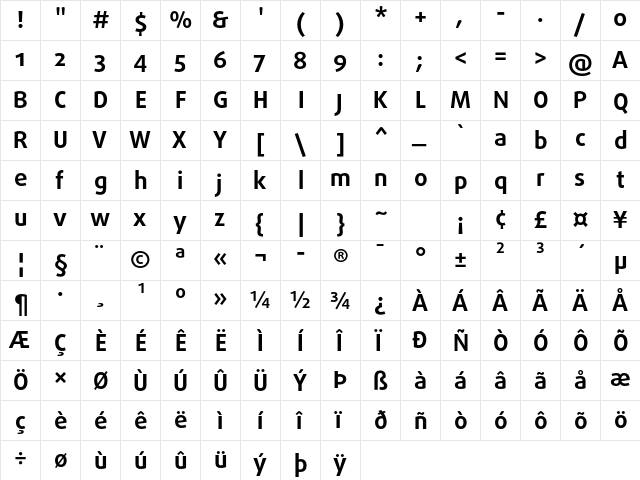
DaxlinePro Bold
| Foundry | FSI Fonts und Software GmbH |
| Designer | Hans Reichel |
Design Context for DaxlinePro Typeface
DaxlinePro is a composed and adaptable typeface that performs quietly and consistently across a wide range of design contexts. Its bold stroke weight gives it real presence on the page.